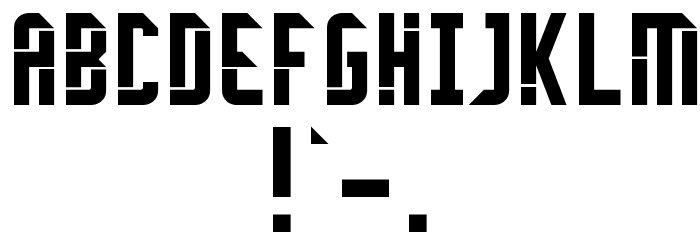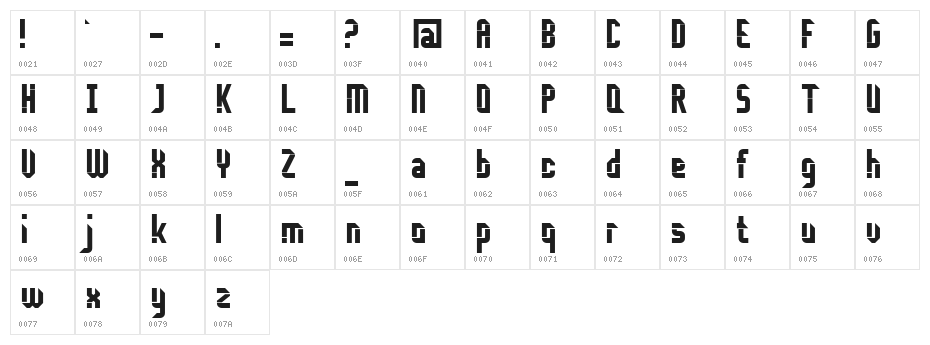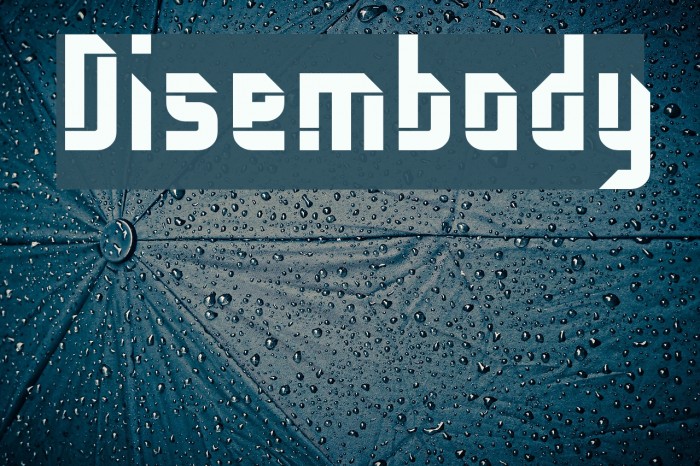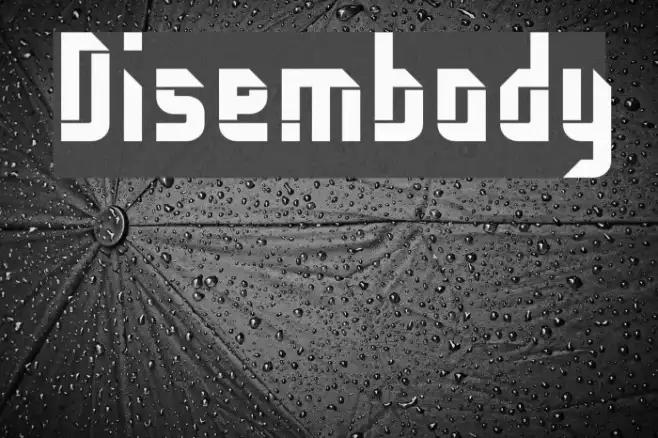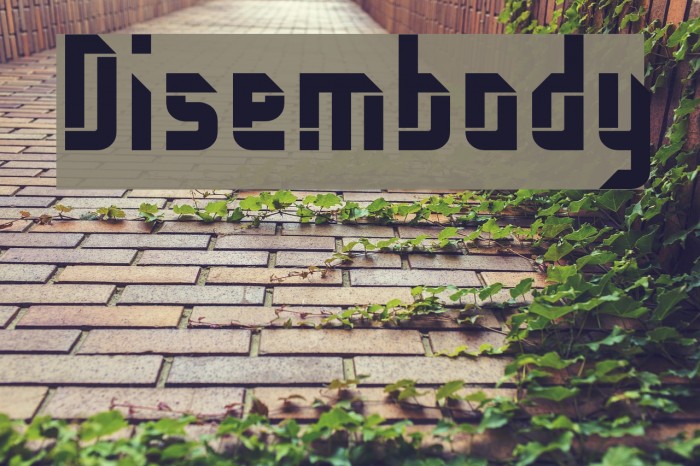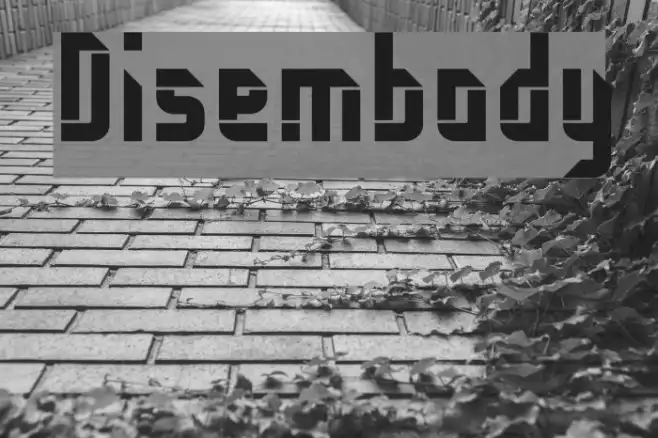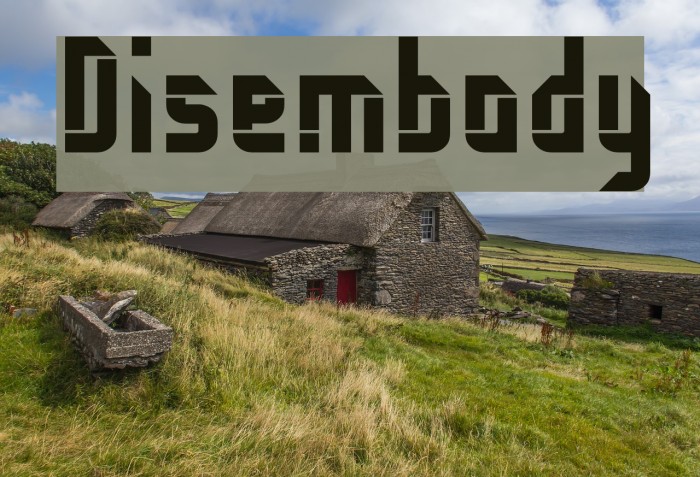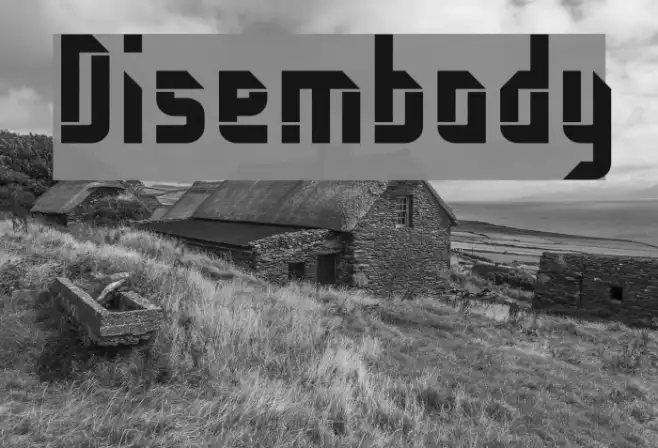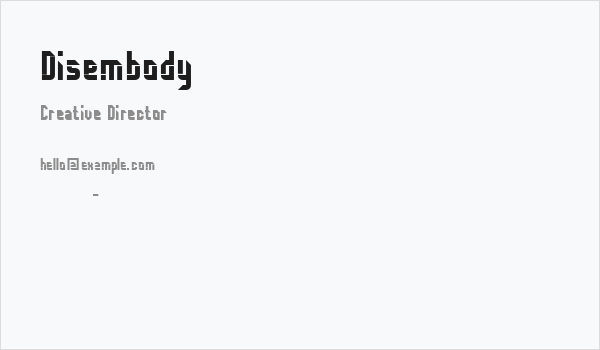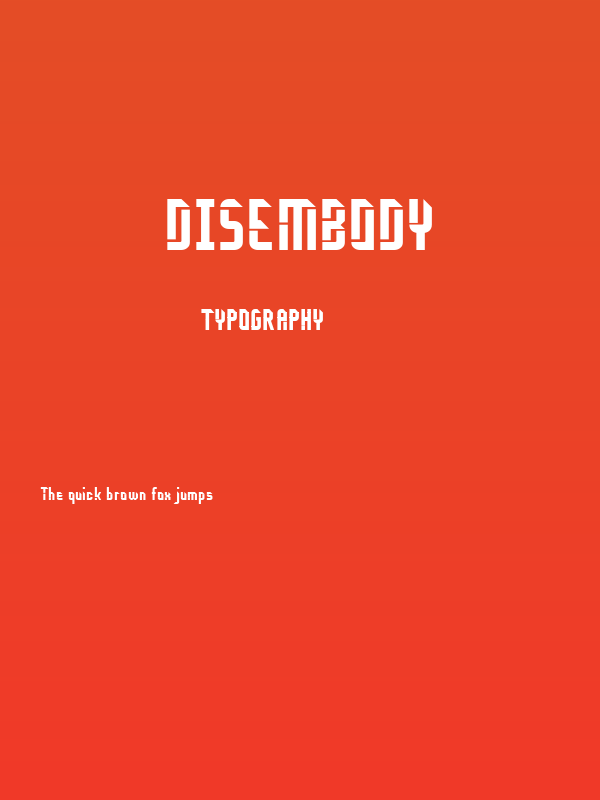
Disembody Font
Disembody Description
This font features a bold, geometric design with a strong emphasis on angular shapes and sharp edges. The characters are constructed with a combination of solid blocks and negative space, creating a striking and modern appearance. The uppercase and lowercase letters maintain a consistent style, with a uniform height and width that contributes to its cohesive look. The font's unique style is further accentuated by its minimalistic approach to curves, opting instead for straight lines and corners. This gives it a futuristic and industrial feel, making it ideal for projects that require a bold and impactful visual statement.
| Proposed Projects | Ideal for branding, posters, and headlines that require a strong visual impact. |